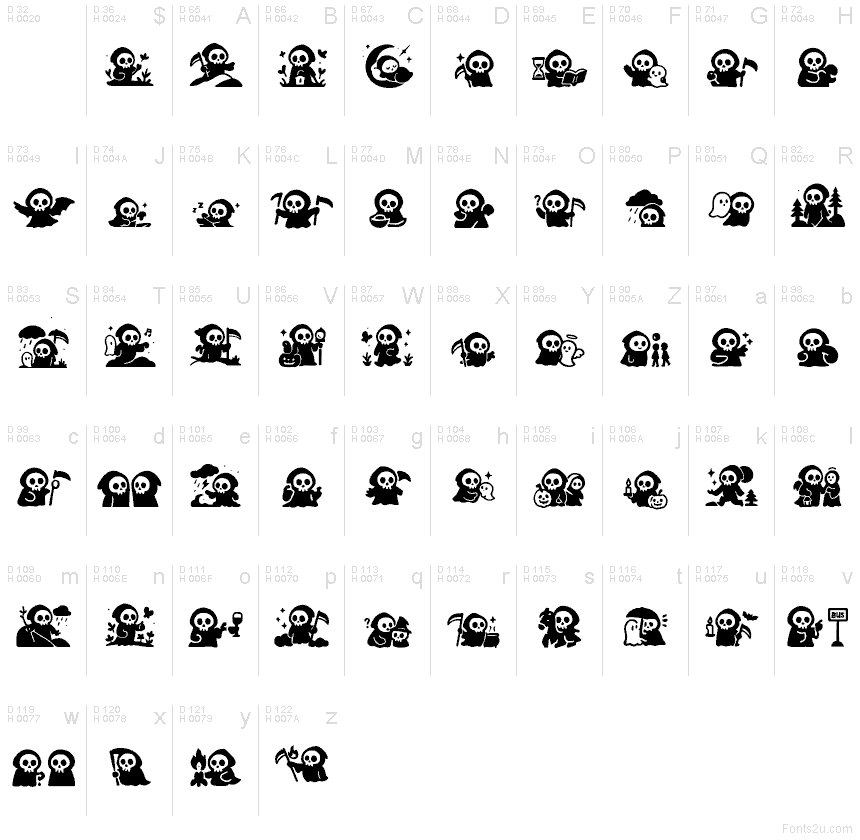
Blackhunter
Blackhunter font by BlackFridayFont FMF is a free horror dingbats font. Built for spooky visuals, it packs chunky, high-contrast silhouettes—grim reapers with round hoods, toothy skulls, scythes, and little sparks or storm clouds—into crisp, sticker-like marks. The icons share consistent proportions and generous spacing, so they drop neatly into layouts without fussy adjustments.
Using Blackhunter, you can whip up Halloween posters, party invitations, candy packaging, YouTube thumbnails, Twitch overlays, and event flyers in minutes. This free font reads clearly at small sizes and hits hard when oversized; try white icons on a soot-black field. Pair with a clean condensed sans to let the inky shapes do the talking.